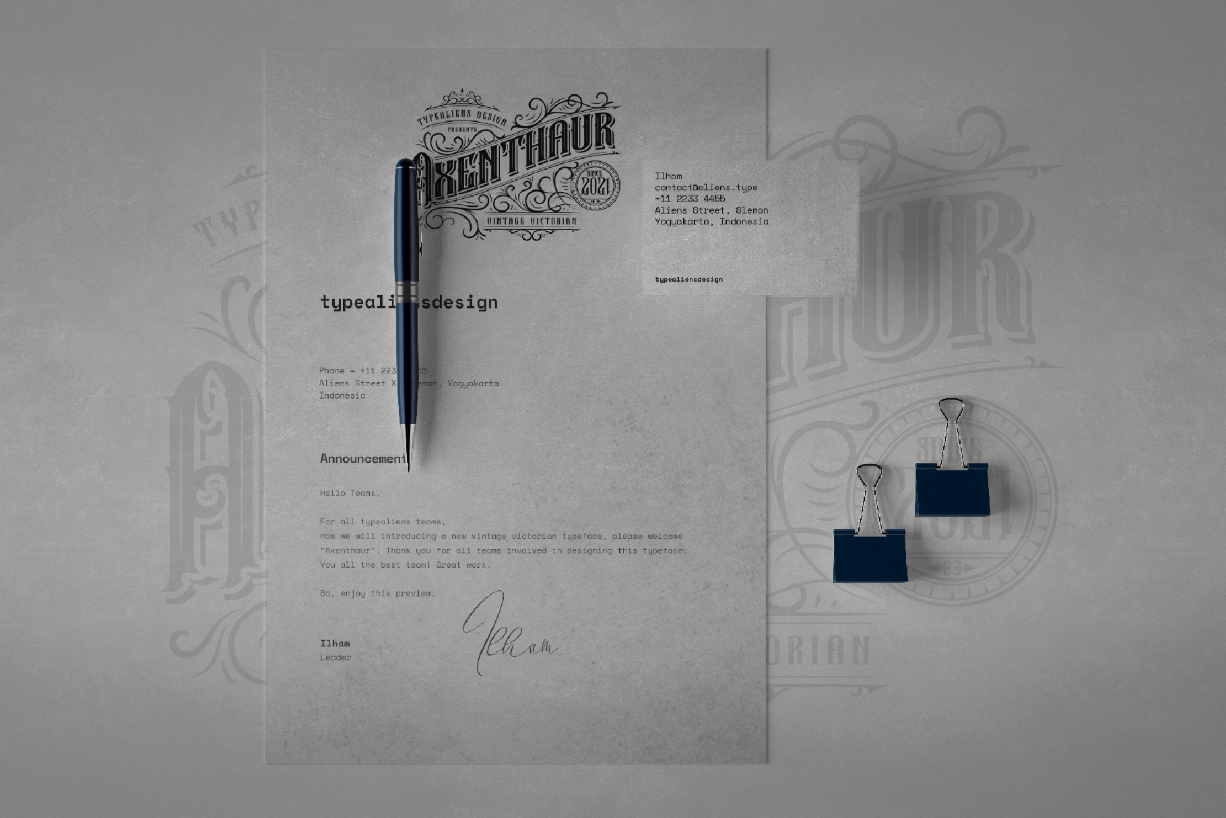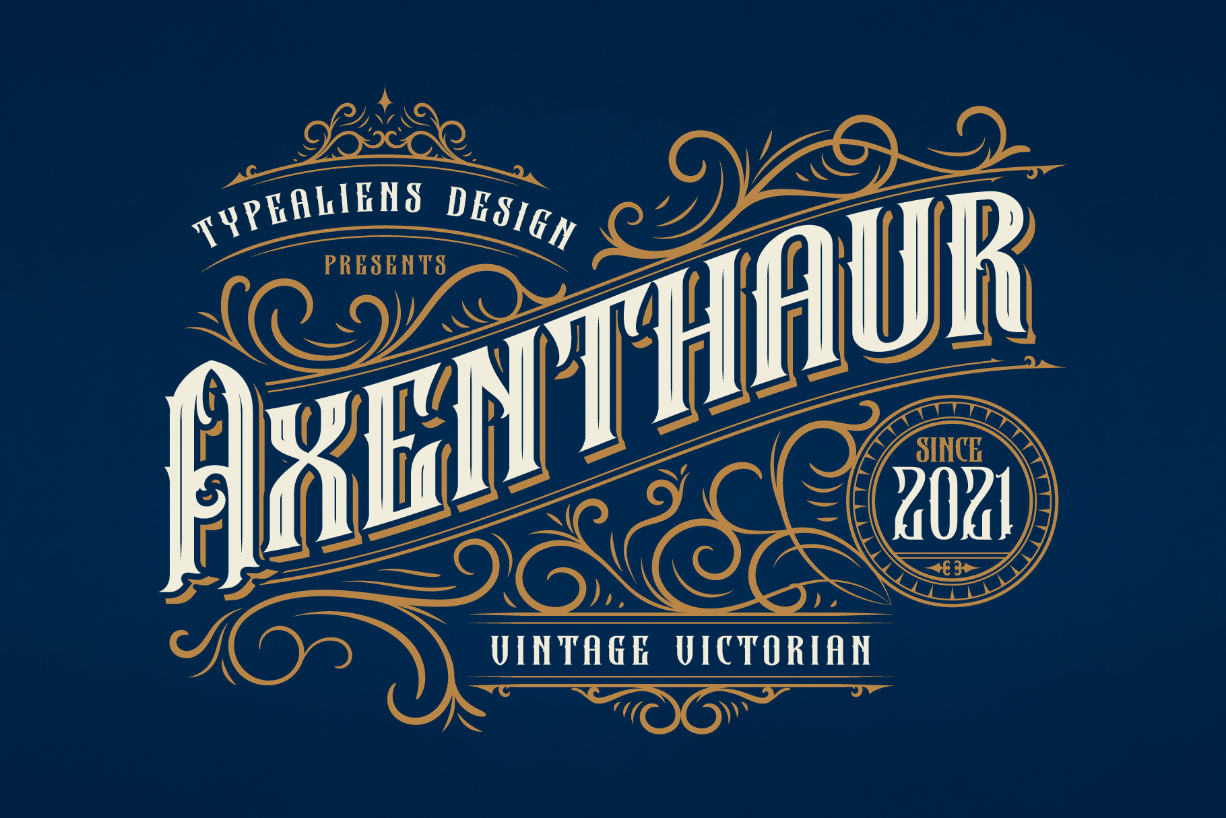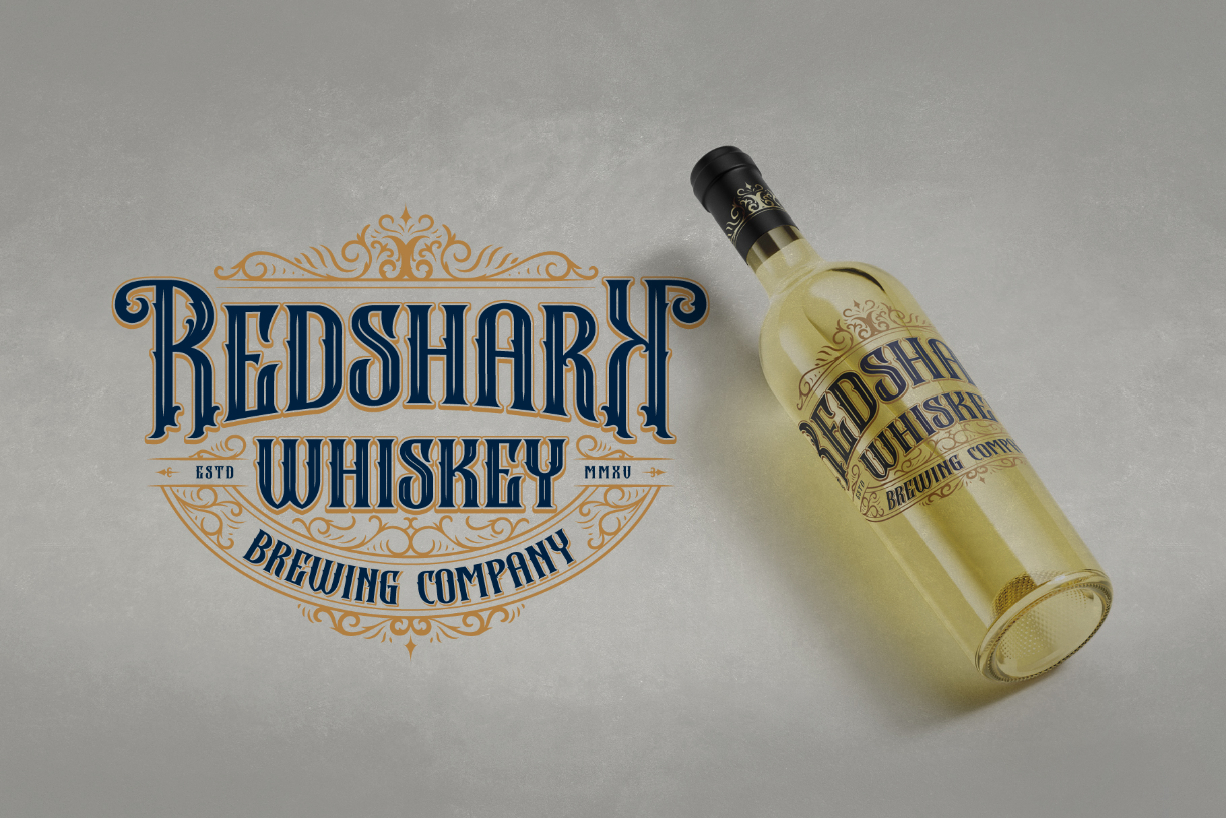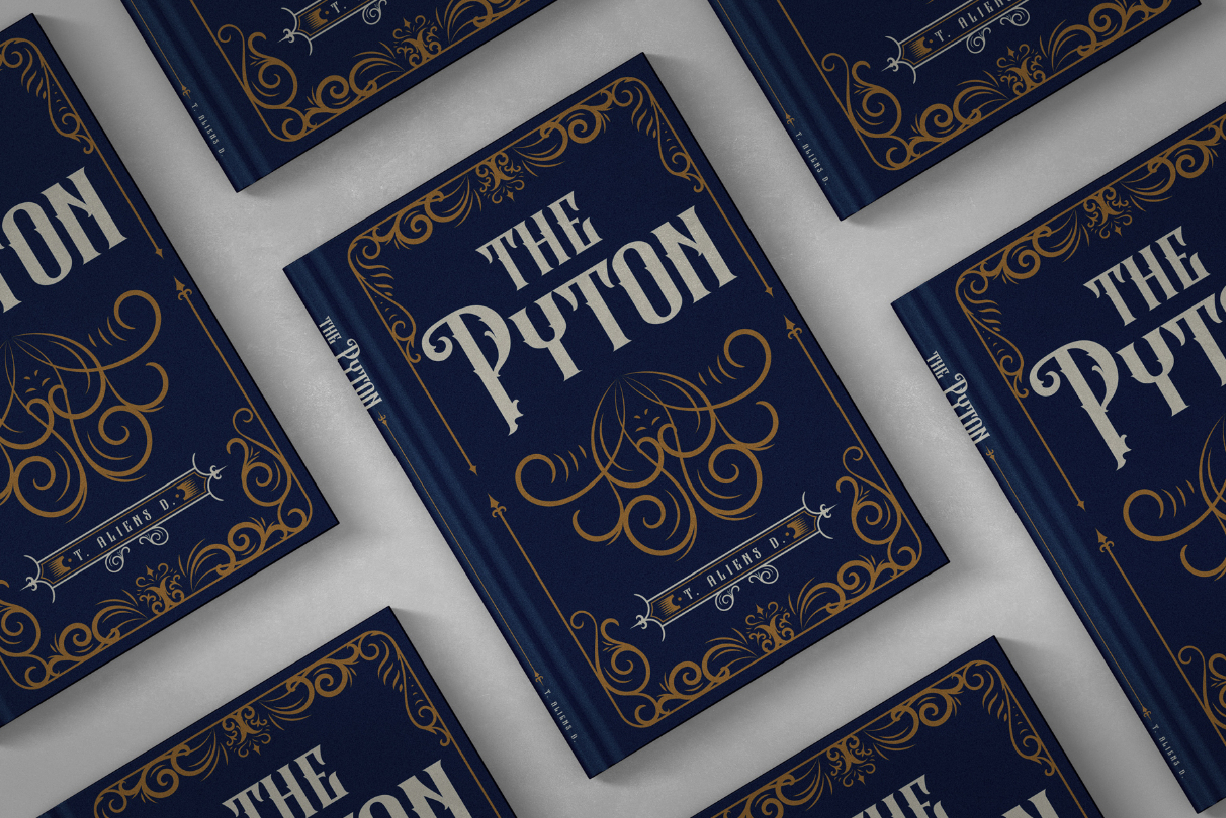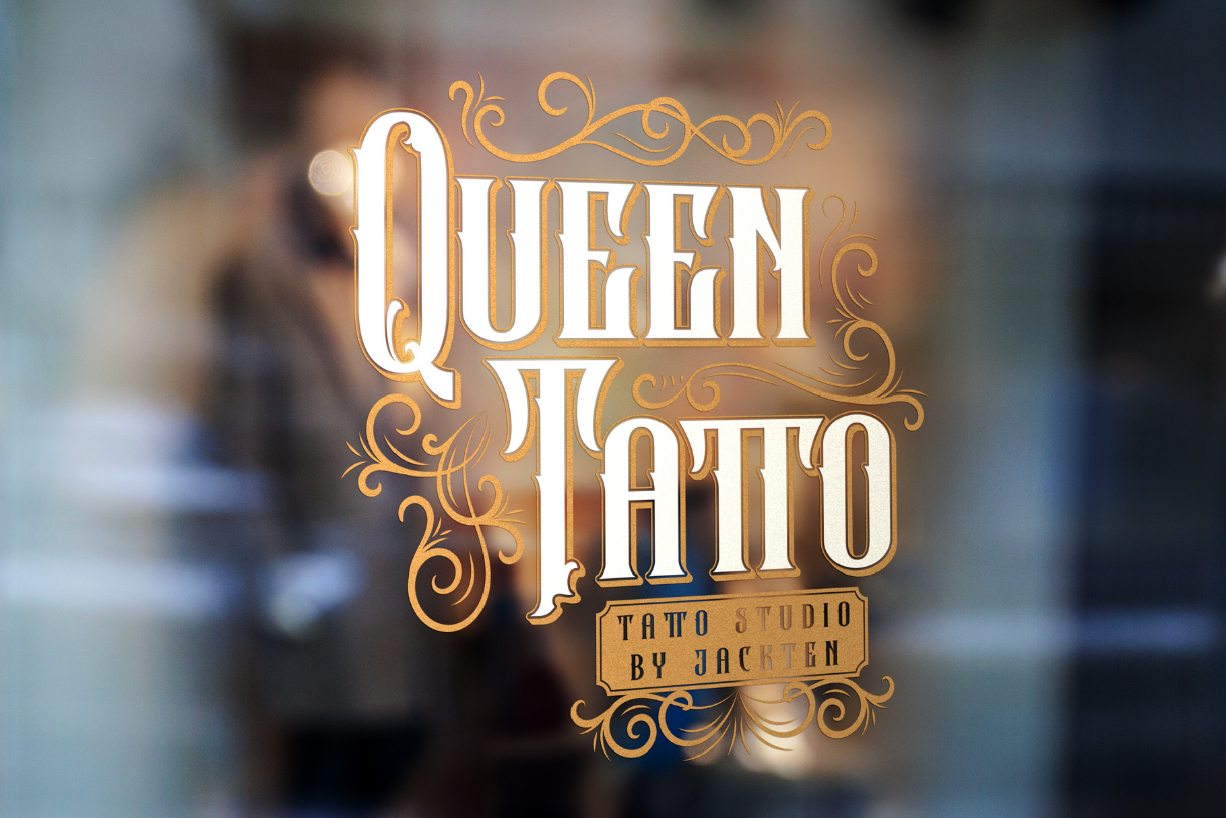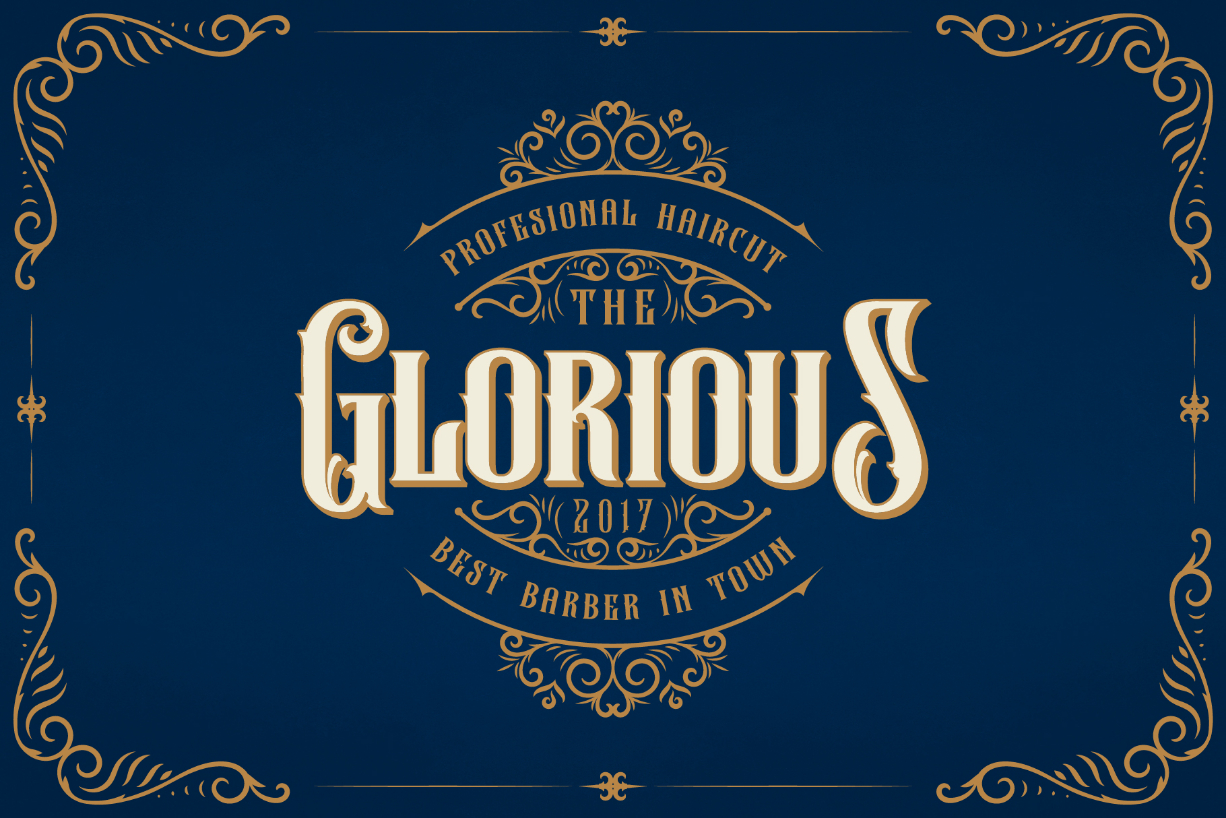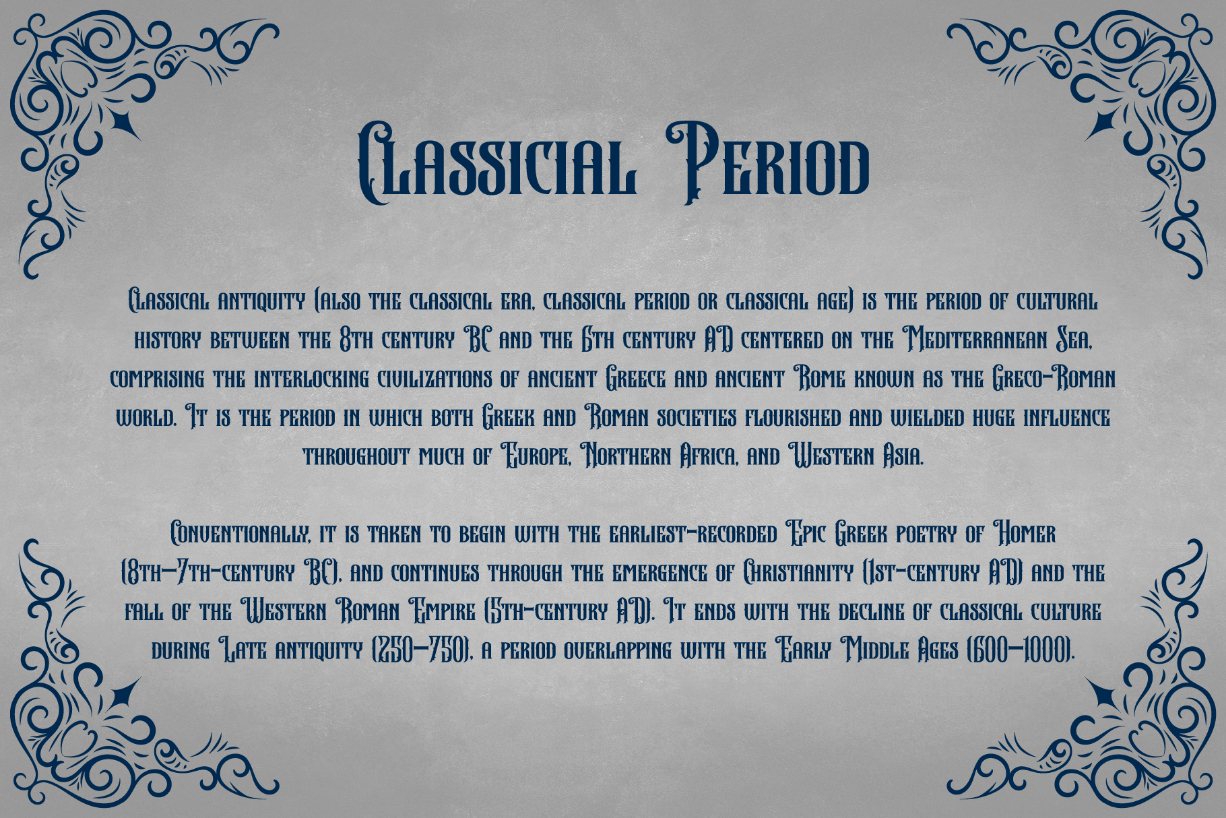
About Axenthaur Font
Axenthaur is a detailed, vintage styled blackletter font. This original look will appeal to a wide range of crafty ideas, from letterheads and titles, to stationery.